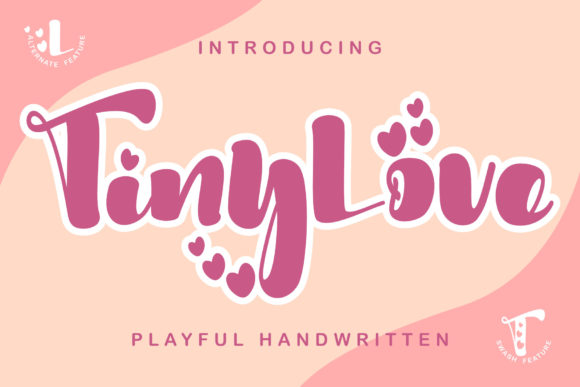
Welcome to the captivating world of Tiny Love, a chic and playful display font guaranteed to add a spark of joy and romance to your creative projects. Step into a realm of elegance and charm, where this stunning font transforms your designs into works of art. Express your heartfelt emotions with Tiny Love's graceful curves, delicate swashes, and swirling characters.
With Tiny Love, you hold the key to unlocking a treasure trove of design possibilities. Whether it's a heartfelt wedding invitation, an enchanting logo, or a whimsical social media post, Tiny Love seamlessly blends sophistication and charm, leaving an indelible mark on your audience. Imagine the joy as your words come to life, each letter dancing across the page, carrying a message of love, friendship, and heartfelt emotions.
Unlock the boundless potential of Tiny Love today and embark on a typographic adventure like no other. Dive into a world where creativity knows no bounds, where every project becomes a masterpiece, and where your designs radiate with a touch of magic. Let Tiny Love ignite your imagination and create a symphony of visual wonders that resonate with your audience's hearts.